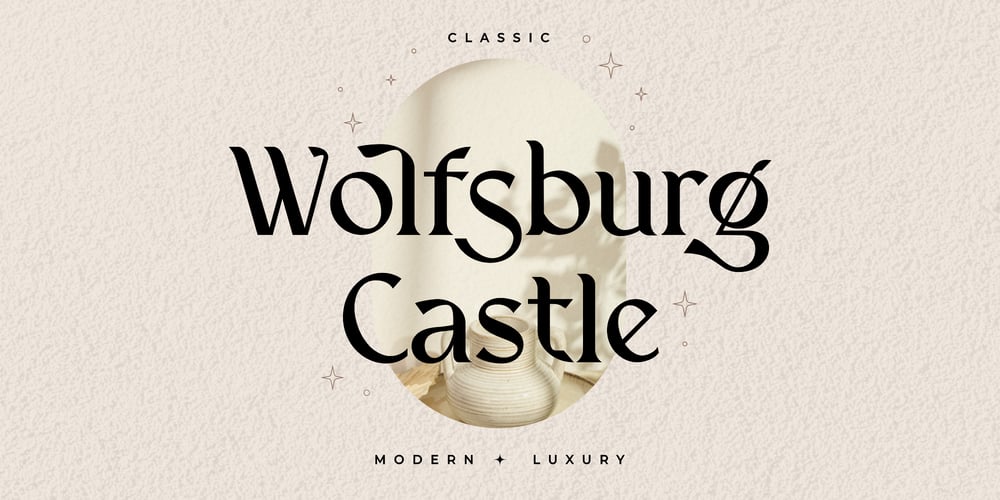
Wolfsburg Castle Font Family was designed by Faizul Muna and published by Unitype Studio. Wolfsburg Castle contains 1 styles and family package options. Introducing Wolfsburg Castle, a timeless Serif font that exudes classic elegance and modern sophistication. With its luxurious and stylish design, this font is perfect for adding a touch of refinement to your projects. Whether you’re creating branding materials, wedding invitations, or editorial designs, Wolfsburg Castle will captivate your audience with its regal charm.